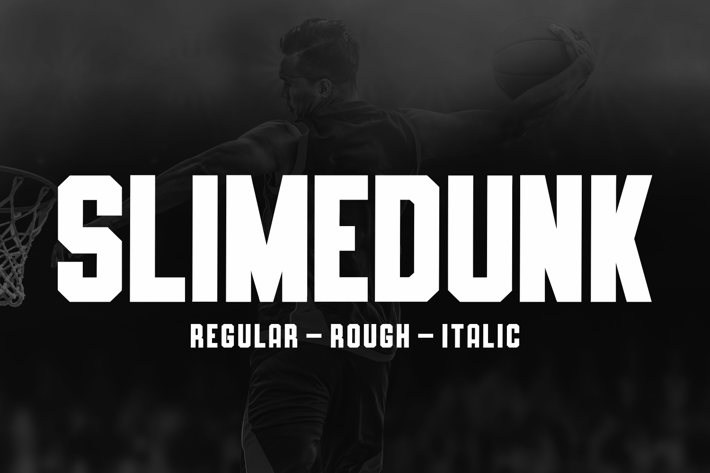
Slimedunk - A Powerful Sans Serif
Introducing SLIMEDUNK, a modern sans serif display typeface that comes in four distinct styles: Clean, Rough, and Italic. Featuring a unique and contemporary design, this font is perfect for E-sport logos, film posters, games, sports projects, and more. Its versatility and sleek look make it an excellent choice for any design needing a bold and stylish touch.
SLIMEDUNK is not only great for dynamic and energetic projects but also brings a delicate and refined look to invitations, posters, and other sophisticated designs. With its PUA Encoded feature, accessing a wide range of alternate characters is a breeze, making customization simple and efficient.
Elevate your creative ideas with SLIMEDUNK and watch how it makes them stand out. Whether you're working on high-impact visuals or elegant layouts, this font provides the perfect blend of modernity and versatility to make your projects shine.